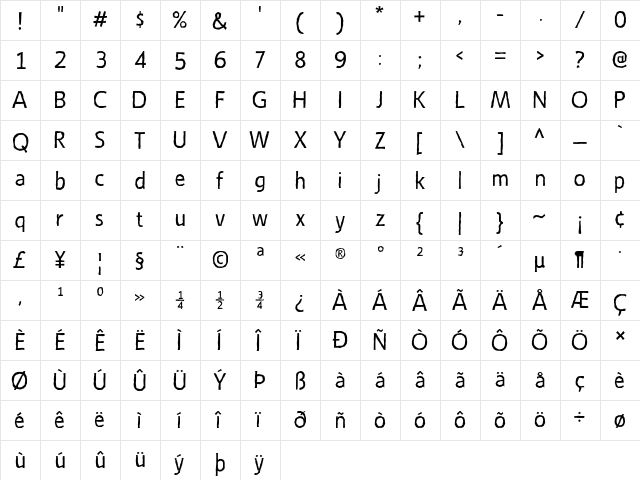
Emory Regular
Design Context for Emory Typeface
Emory is a composed and adaptable typeface that performs quietly and consistently across a wide range of design contexts.